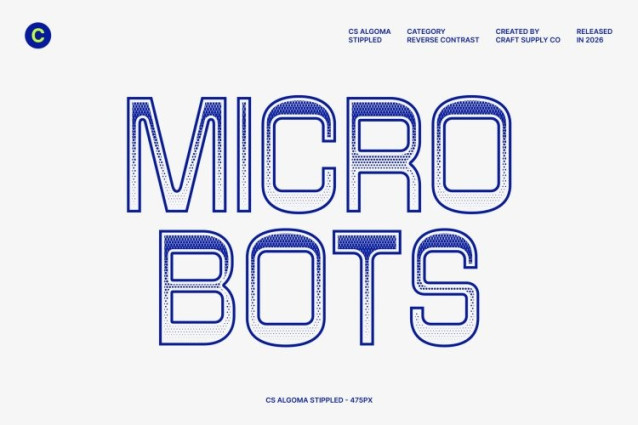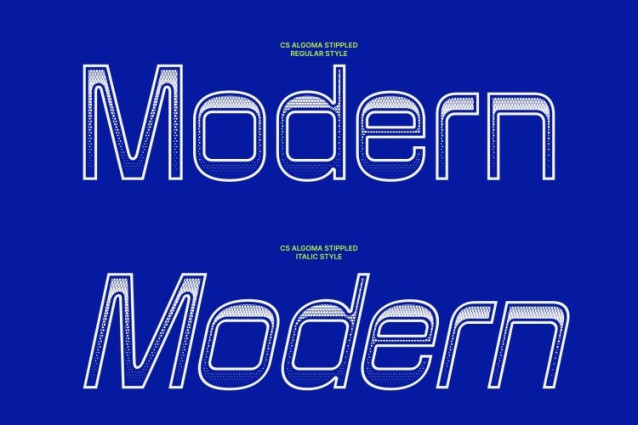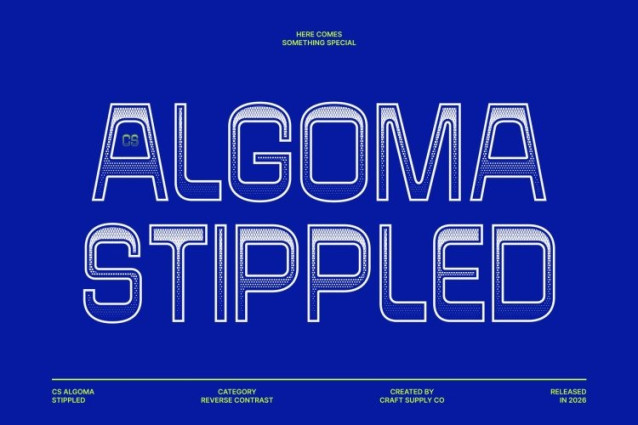
CS Algoma Stippled Font
CS Algoma Stippled Font This is a reverse contrast sans serif display font that merges retro charm with contemporary design precision. Built on bold geometric construction and distinctive modular forms, this font delivers a playful yet structured personality. The addition of a dense stippled texture inspired by classic ink-dot and stippling illustration techniques adds an artistic, handcrafted dimension that enhances its visual depth and uniqueness.
Retro Inspiration with a Modern, Textured Twist
Drawing inspiration from mid-century design and vintage signage, captures nostalgic energy while maintaining a clean, modern composition. Its reversed contrast flips traditional letterform weight distribution, creating an unconventional rhythm that feels fresh and eye-catching. The stippled surface reinforces its vintage character, adding warmth and texture without sacrificing precision.
Bold, Distinctive, and Expressive Letterforms
Strong modular shapes and confident geometry define letterforms. Balanced proportions ensure clarity and readability, while the reverse contrast and dotwork texture introduce depth, movement, and flair. This combination results in characters that feel expressive, dynamic, and visually engaging perfect for designs that demand personality and impact.
Ideal for Statement Branding and Creative Promotion
Designed to stand out, This is ideal for posters, branding, editorial layouts, packaging, and promotional visuals. Its fusion of retro aesthetics, modern structure, and stippled detailing makes it a versatile choice for brands and designers seeking bold identity, artistic innovation, and a timeless yet contemporary visual pulse.